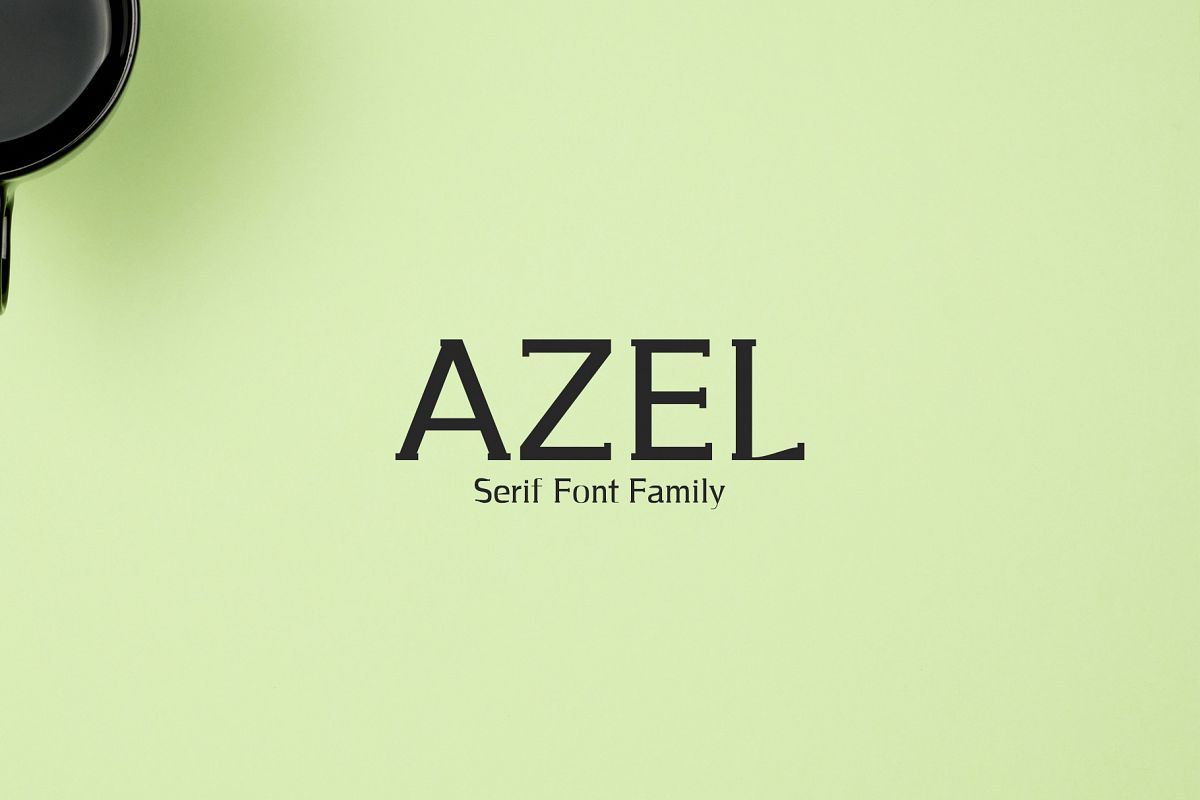
Azel Serif 4 Font Family Pack
Azel Serif Typeface is minimalist and beautiful serif font family of 4 weights and it features unique and modern serif look and feel. Perfect for gorgeous logos & titles, layouts & content, or large & small scale, It looks gorgeous in all caps with a wide-set spacing if you want to try a classy look, or beautiful on its own in capital and lowercase letters for something completely timeless.Features
• Regular, Thin, Bold & Extra Bold Weights
Azel Font Features:
• Uppercase Multilingual Letters
• Lowercase Multilingual Letters
• Alternative